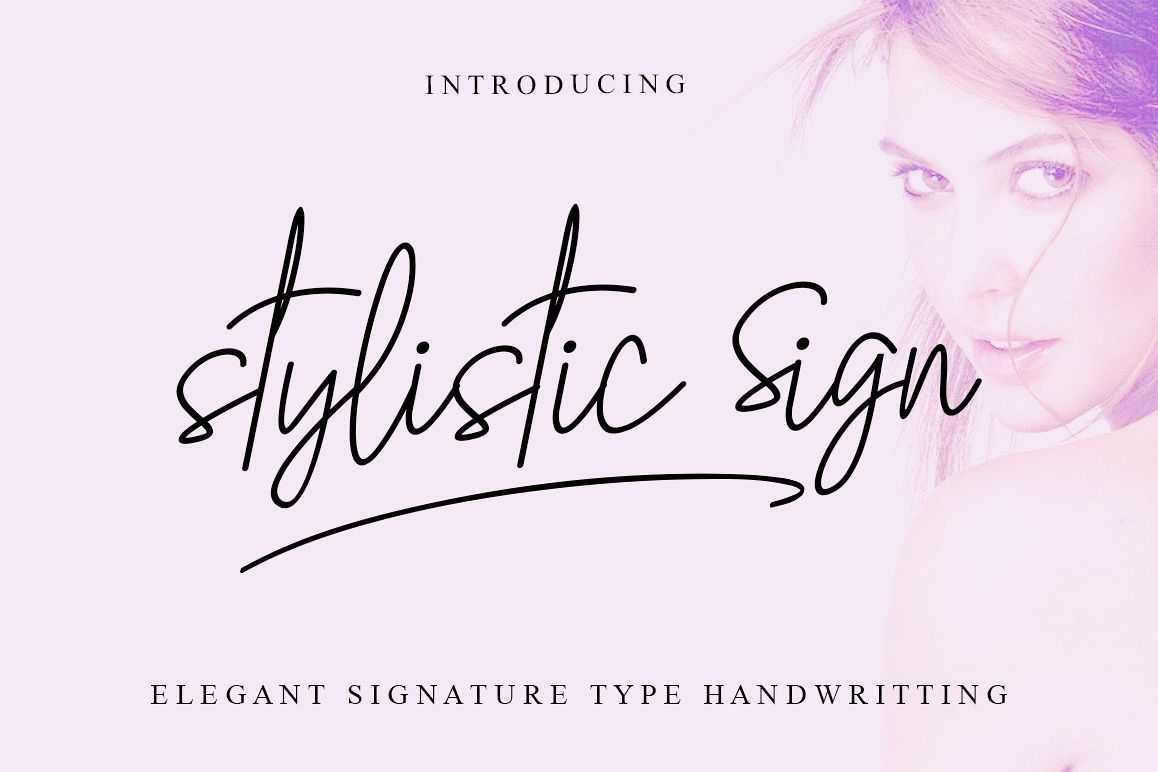
Stylistic Sign
Stylistic Sign is a handwritten signature font designed by showing natural handwriting.
This font looks modern and can refer to feminine and can also be masculine.
as you can see in some preview examples, is very flexible for your business requirement.
This font consists of two types:
- regular
- italic
You can choose your own style that suits your needs and brand.
If You like calligraphy style, please to find stylistic alternate with swash and title of every letter,